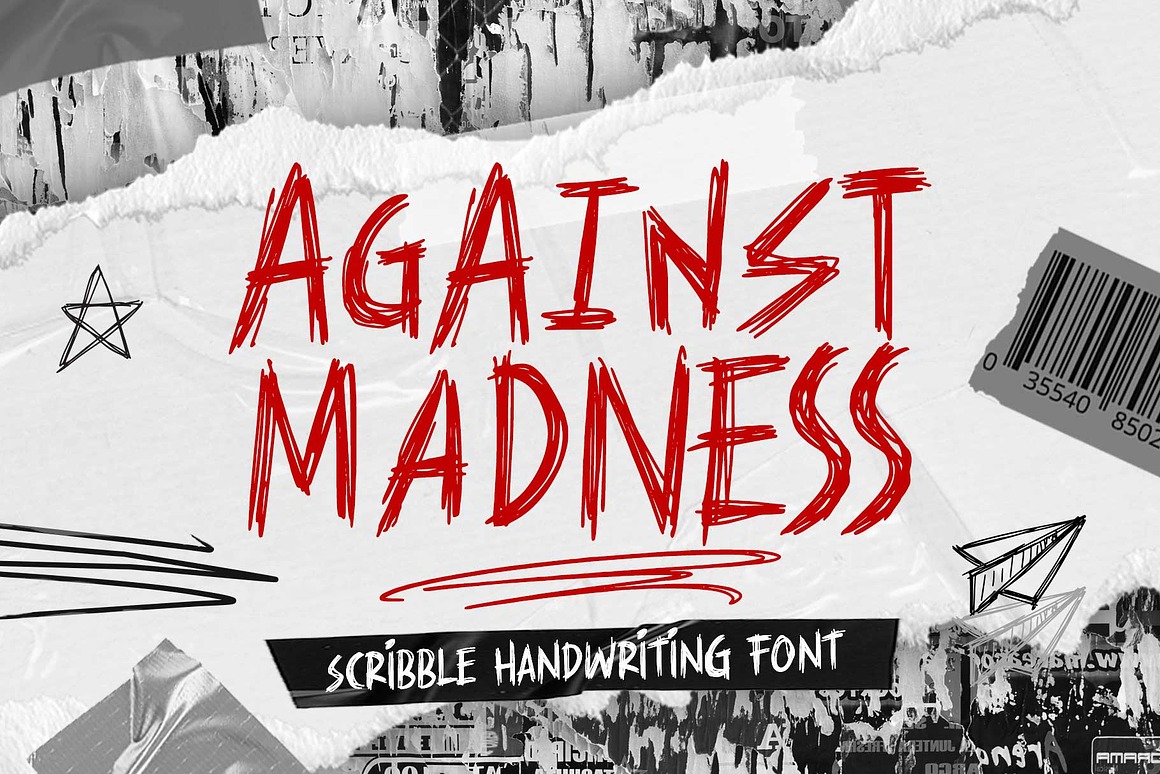
Against Madness Font
About Against Madness
Bring raw emotion and scribbled energy into your work with Against Madness — a rebellious font that speaks louder than words. With expressive, hand-drawn strokes, this typeface channels pure feeling into every letter, perfect for contemporary and minimalist designs that demand to stand out.